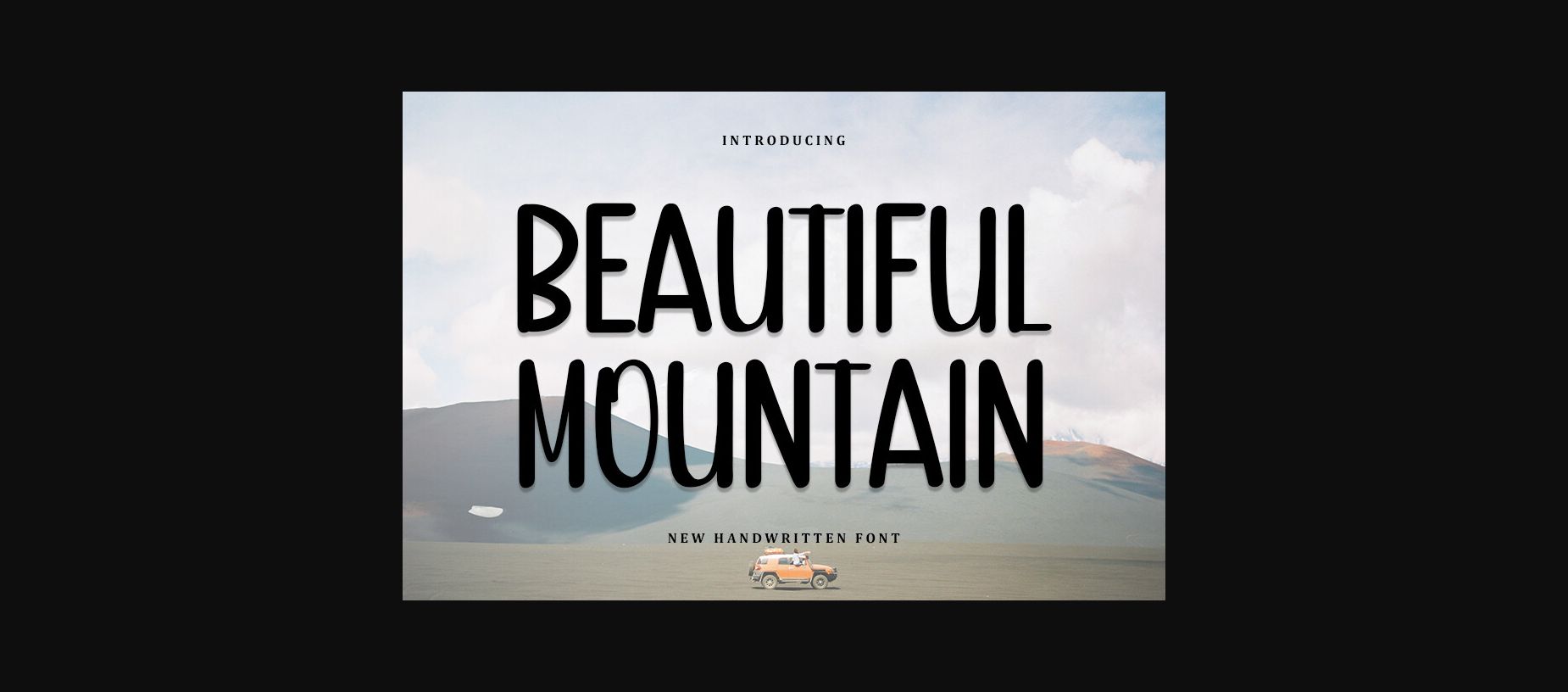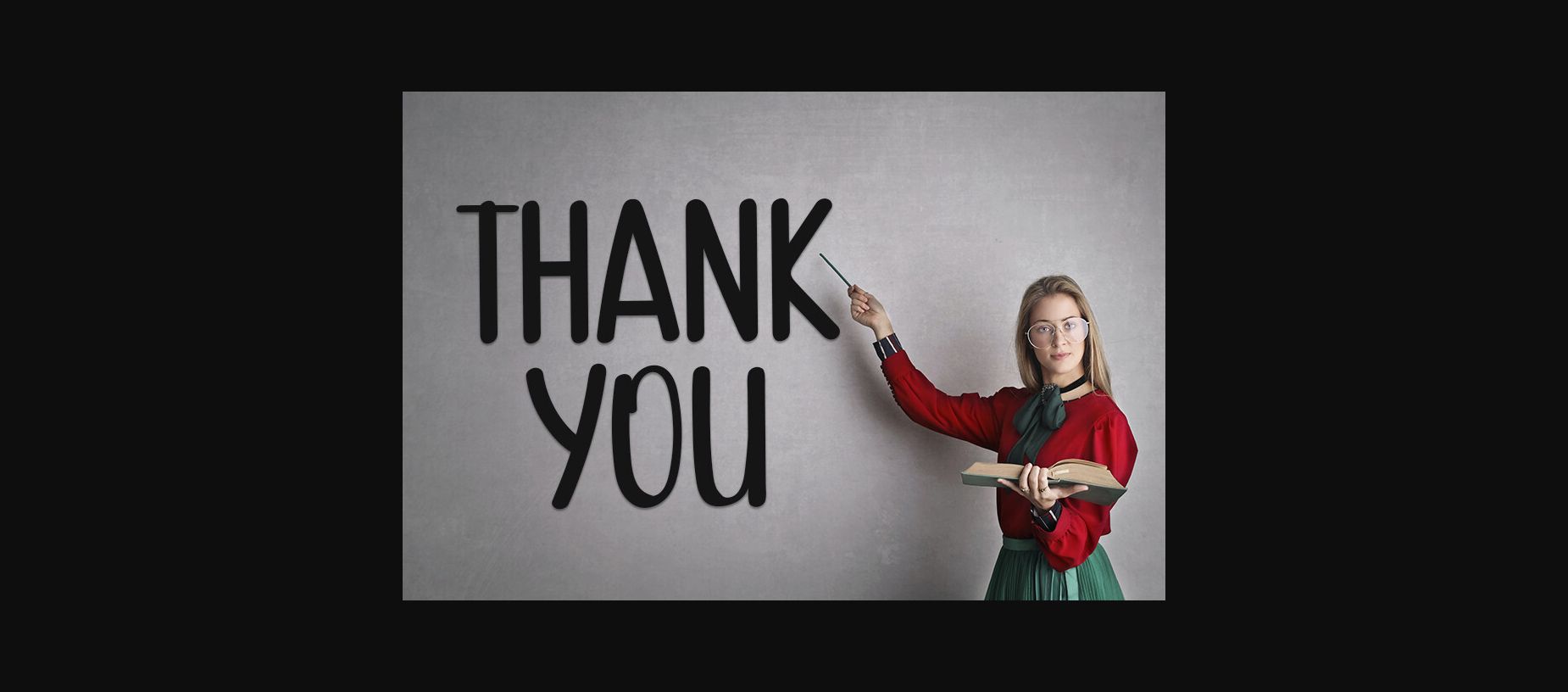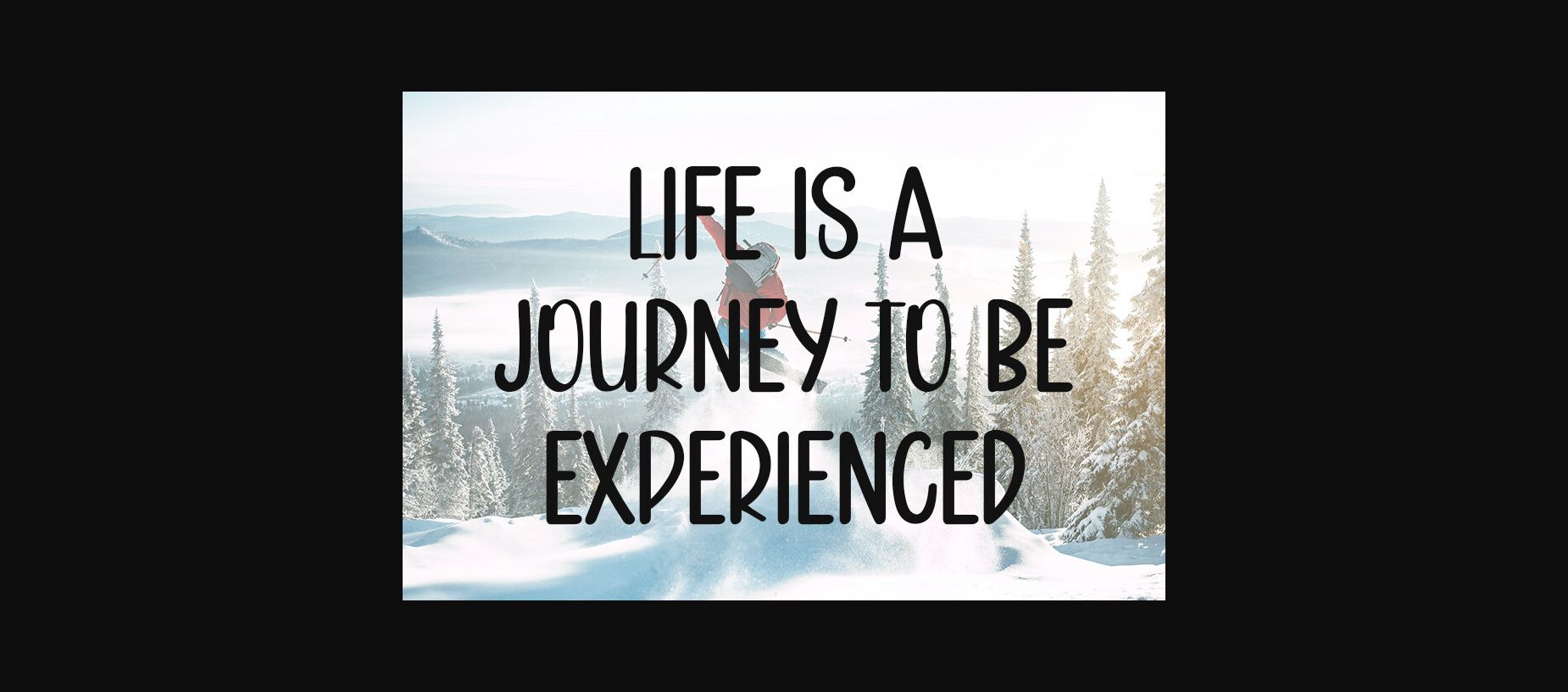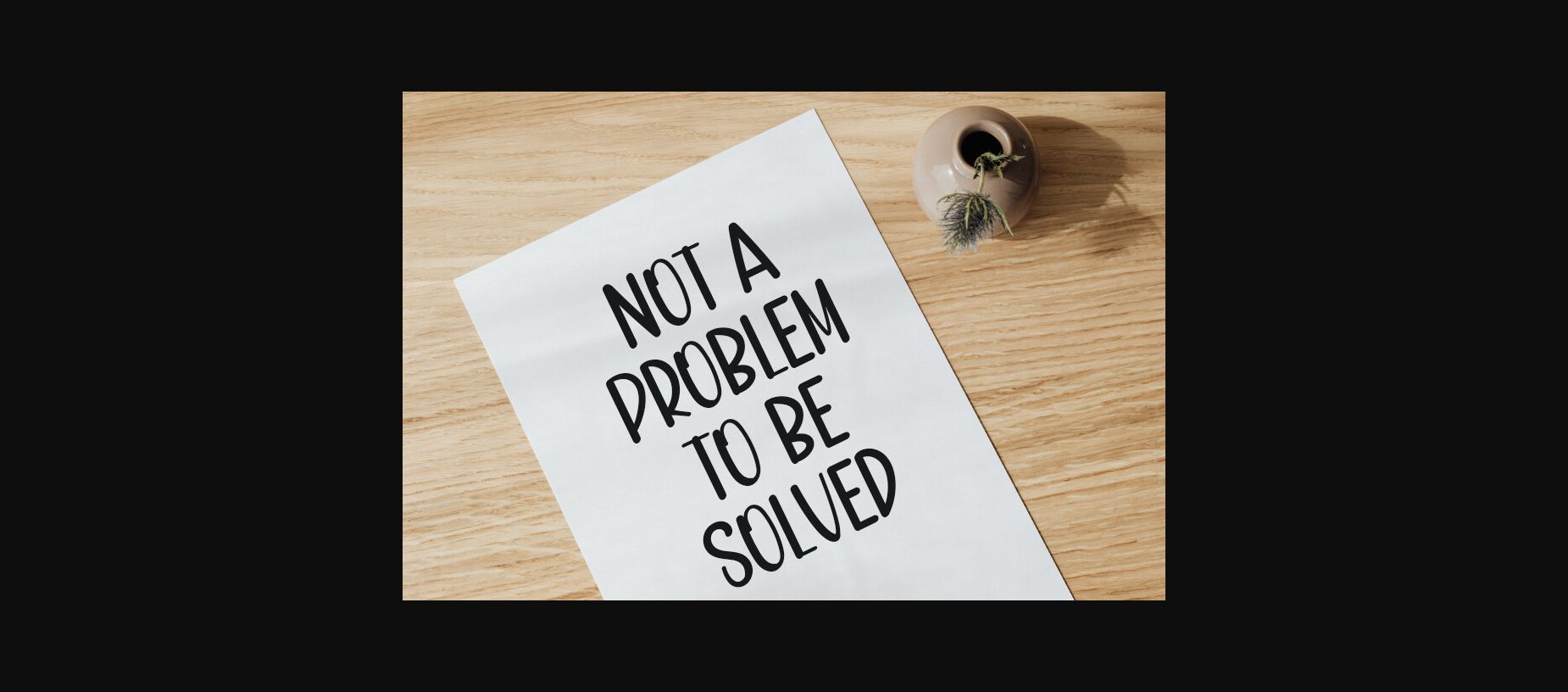
About Beautiful Mountain Font
Beautiful Mountain is a beautiful and refined sans-serif font. It has a classy, elegant, and modern look that can be used for logos, branding, invitations, stationery, wedding designs, social media posts, and much more!